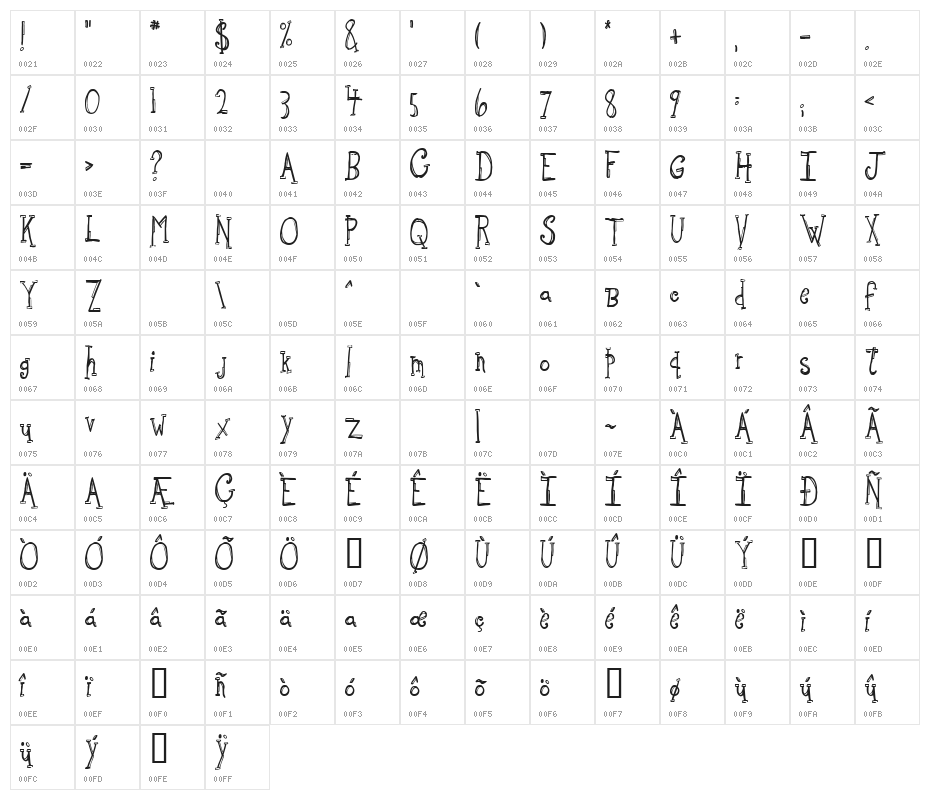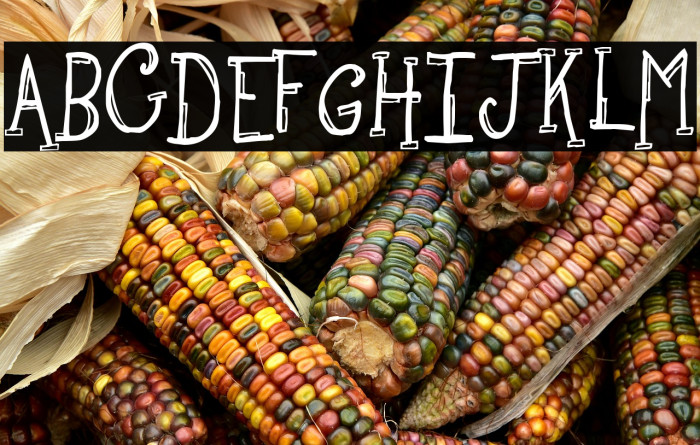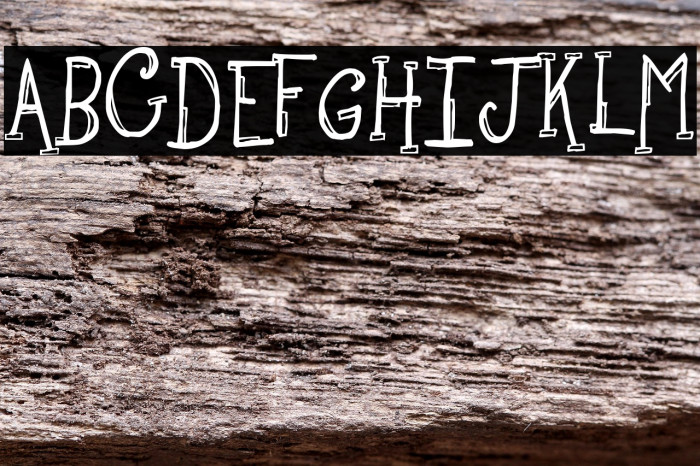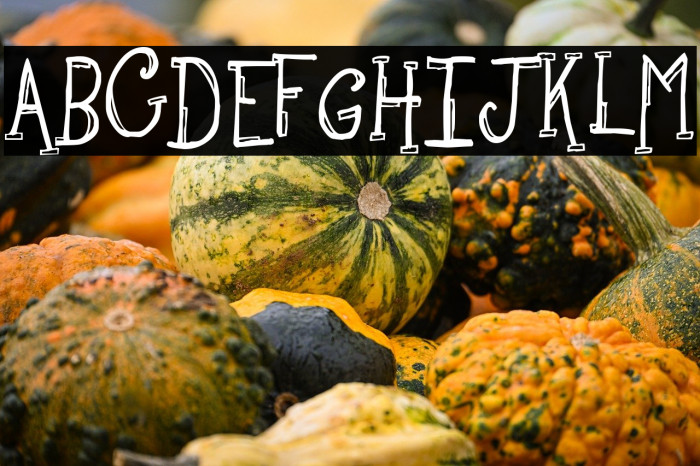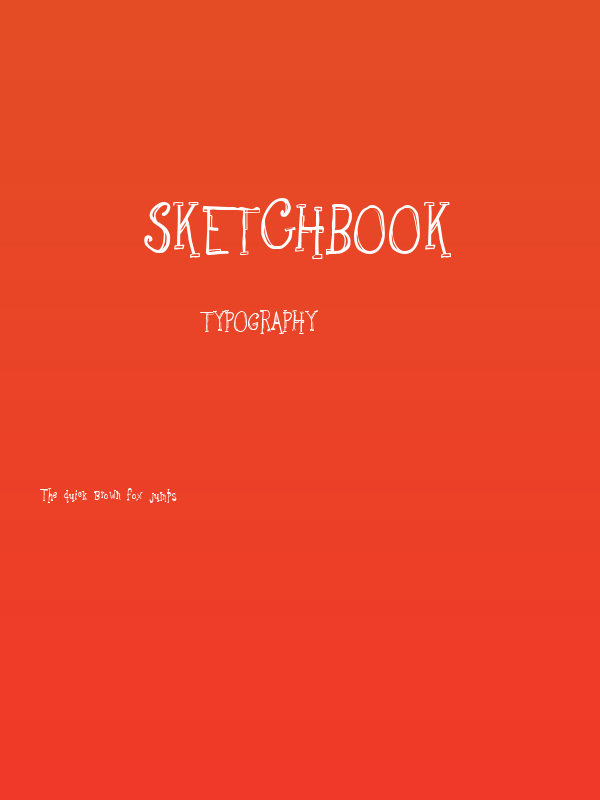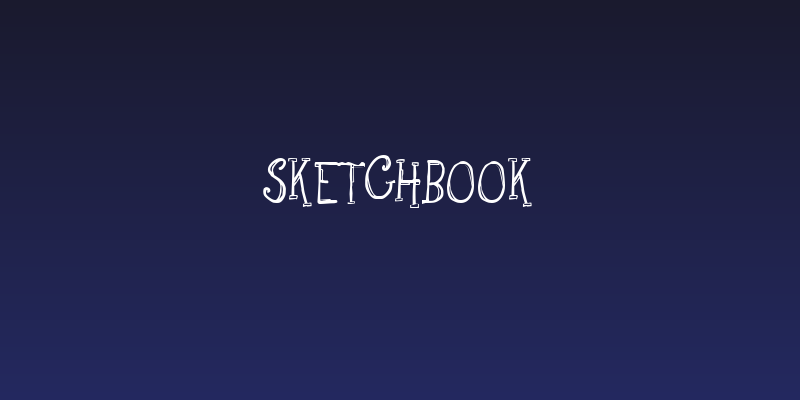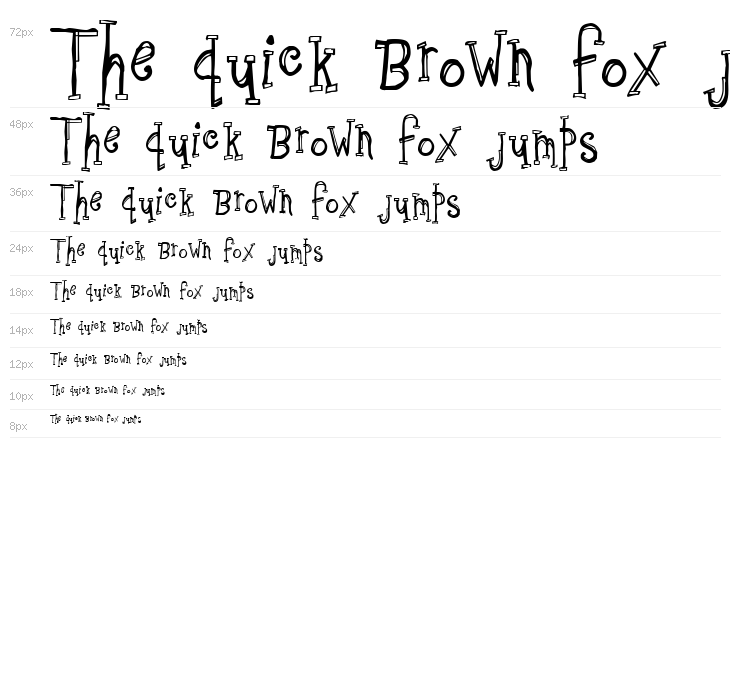
Sketchbook Font
Sketchbook Description
This font features a playful and whimsical style, characterized by its hand-drawn appearance. Each letter has a unique, uneven form, giving it a sketch-like quality. The strokes are irregular, with varying thicknesses that add to the casual and artistic feel. The uppercase and lowercase letters maintain a consistent style, with quirky, exaggerated serifs and a slightly tilted orientation. Numbers and special characters follow the same playful design, making the font suitable for creative and informal applications. The overall look is reminiscent of doodles or sketches, perfect for projects that require a fun and informal touch.
Proposed ProjectsIdeal for children's books, creative posters, casual invitations, and artistic branding.